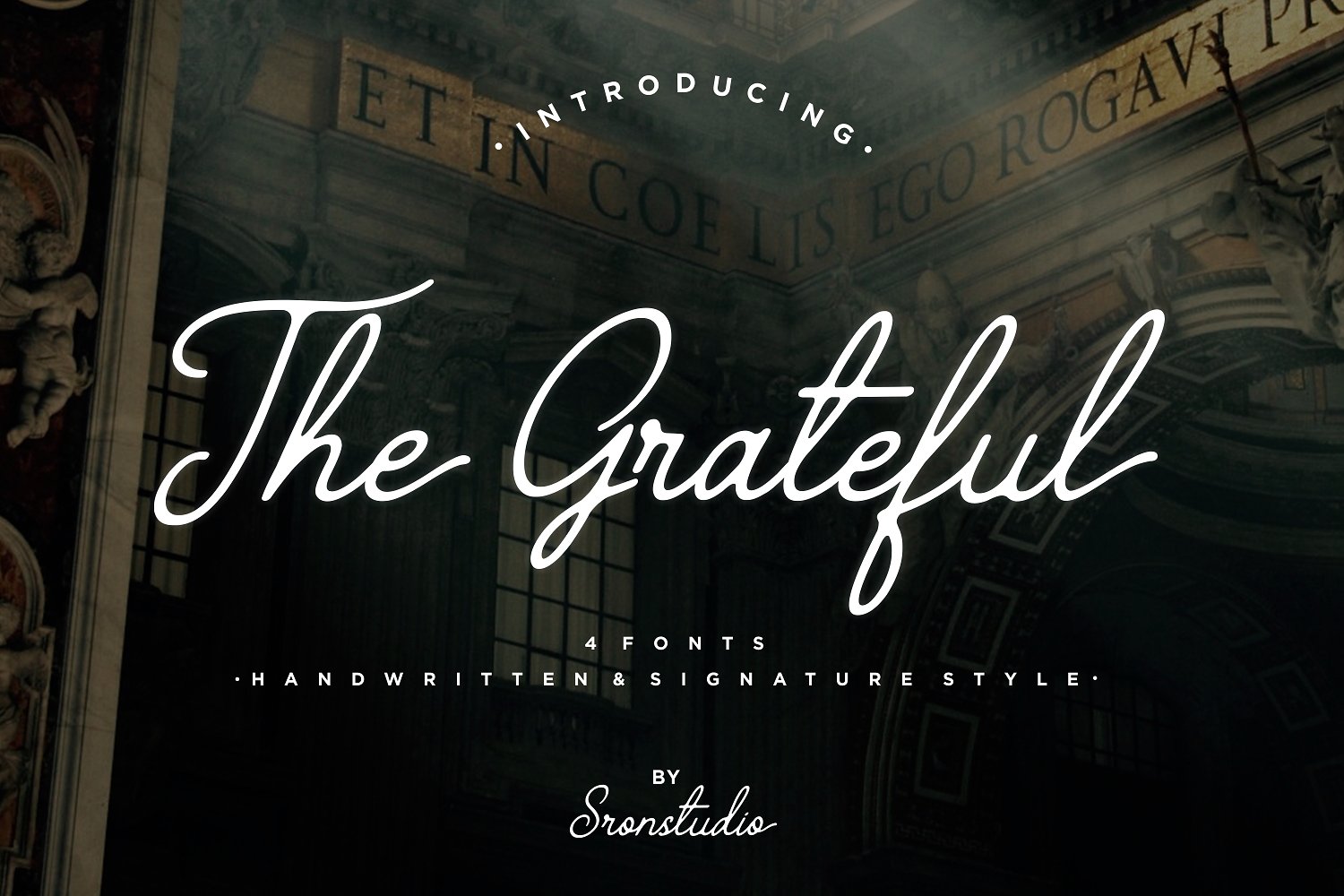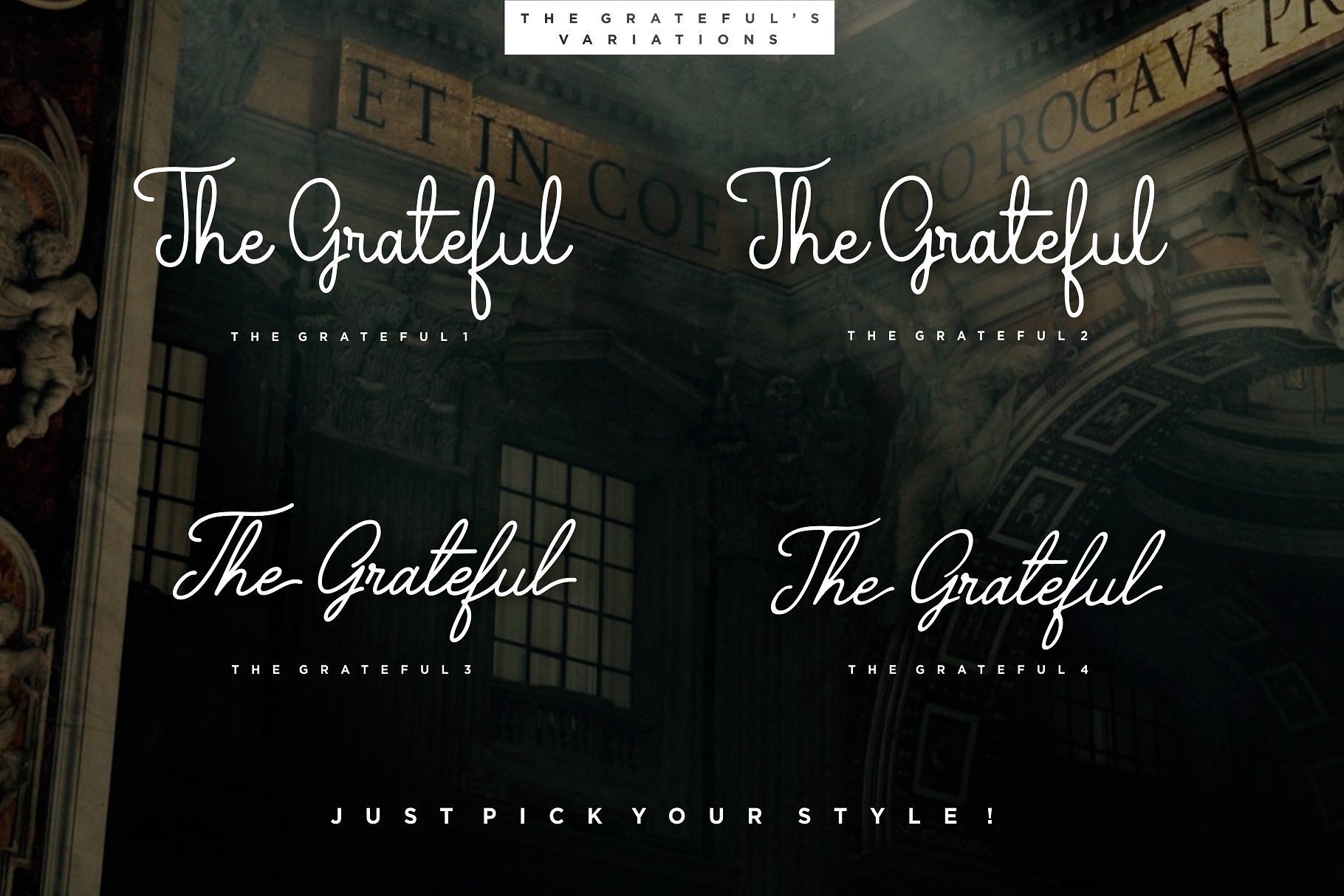
The Grateful Handwritten
The Grateful Handwritten Font
The Grateful is a classic handwritten font, comes with 4 versions that giving you a handwritten and signature feel. This monoline, neat font is a great way to add a hip appeal to your logotype and display designs without compromising on giving your work a sleek look.